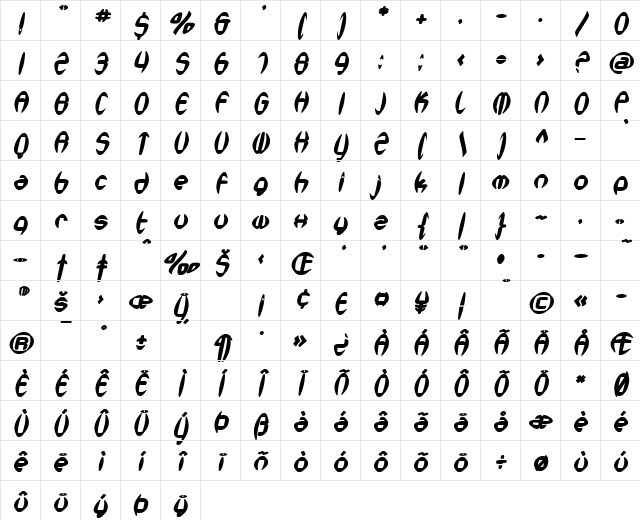
SF Synthonic Pop Bold Oblique
Style: Bold Oblique
SF Synthonic Pop Family
Design Context for SF Synthonic Pop
SF Synthonic Pop is a composed and adaptable typeface that performs quietly and consistently across a wide range of design contexts. The slanted form adds forward momentum and visual energy. Its bold stroke weight gives it real presence on the page.
Pro Tip: Use SF Synthonic Pop for emphasis, pull quotes, and subheadings where its slanted energy can add rhythm to the layout.